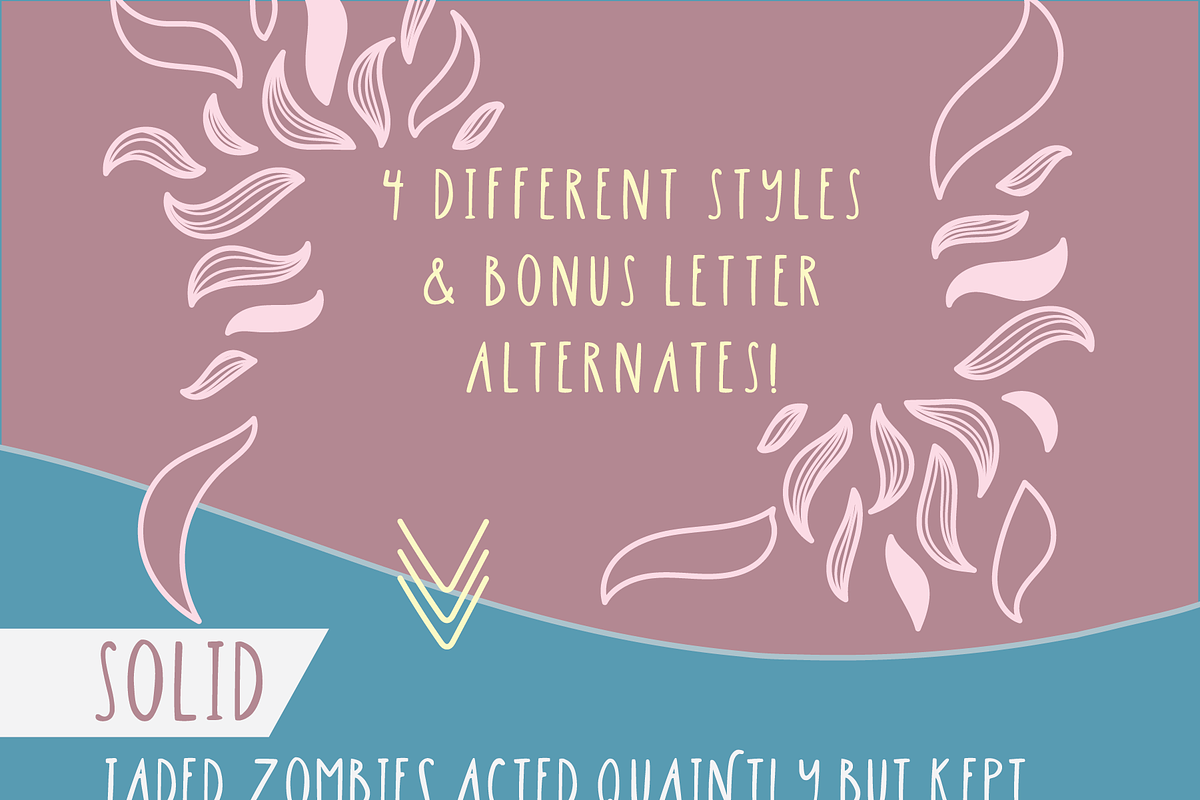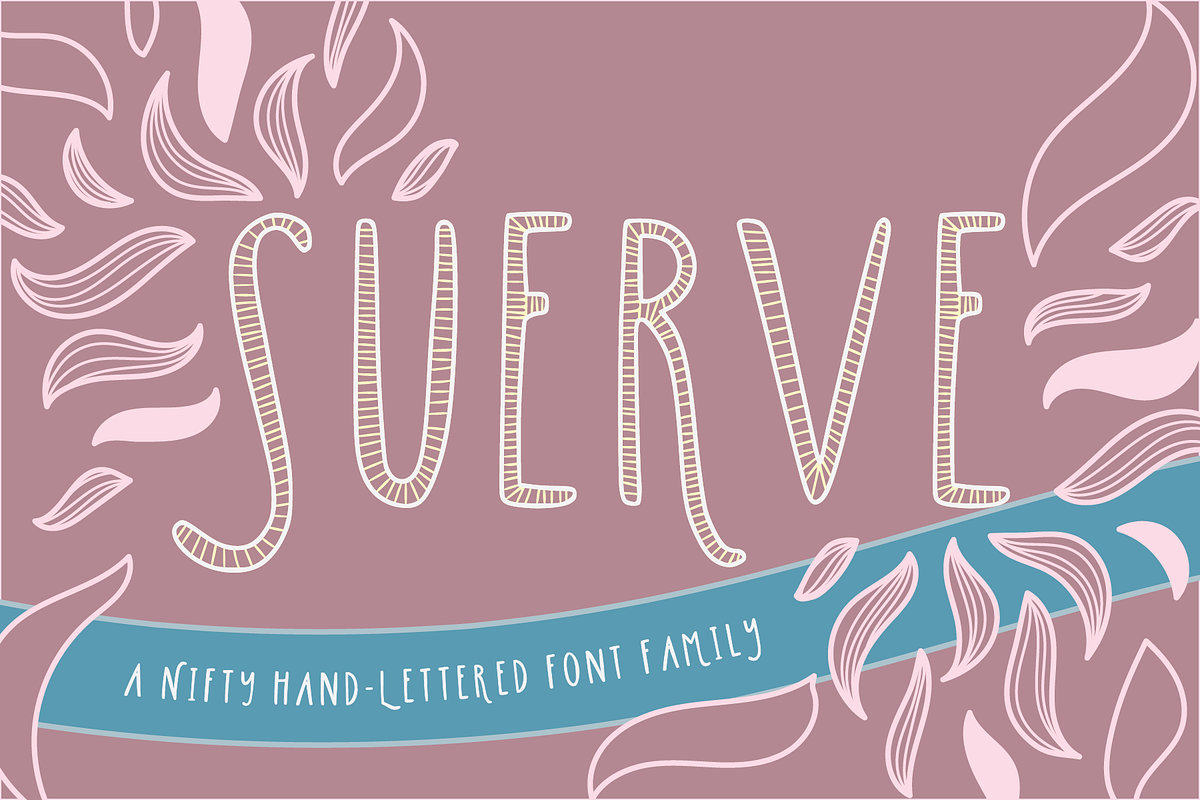
Suerve | A Nifty Handwritten Font
Introducing Suerve , a whimsical san-serif, handwritten styled font. Suerve works wonderfully for a fun diverse type for design projects, logos, event stationery, social media posts, advertisements, and product design.
- Suerve Solid Fill